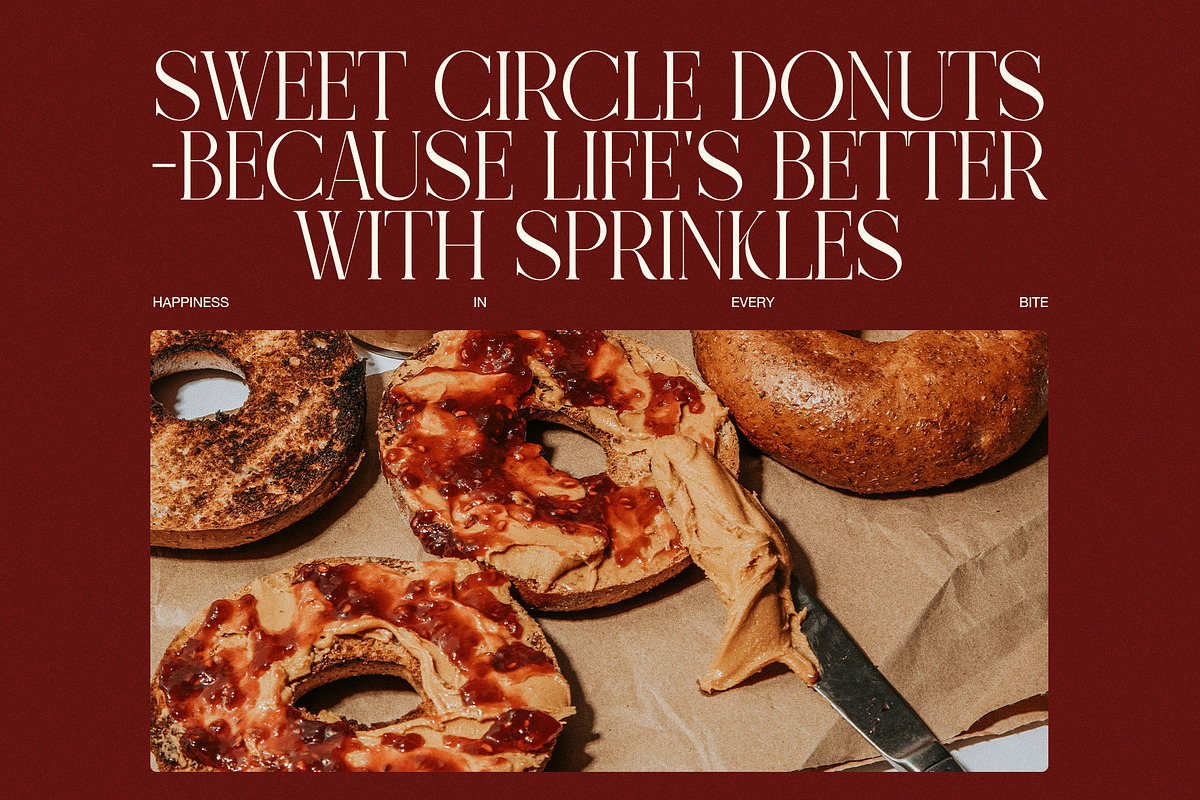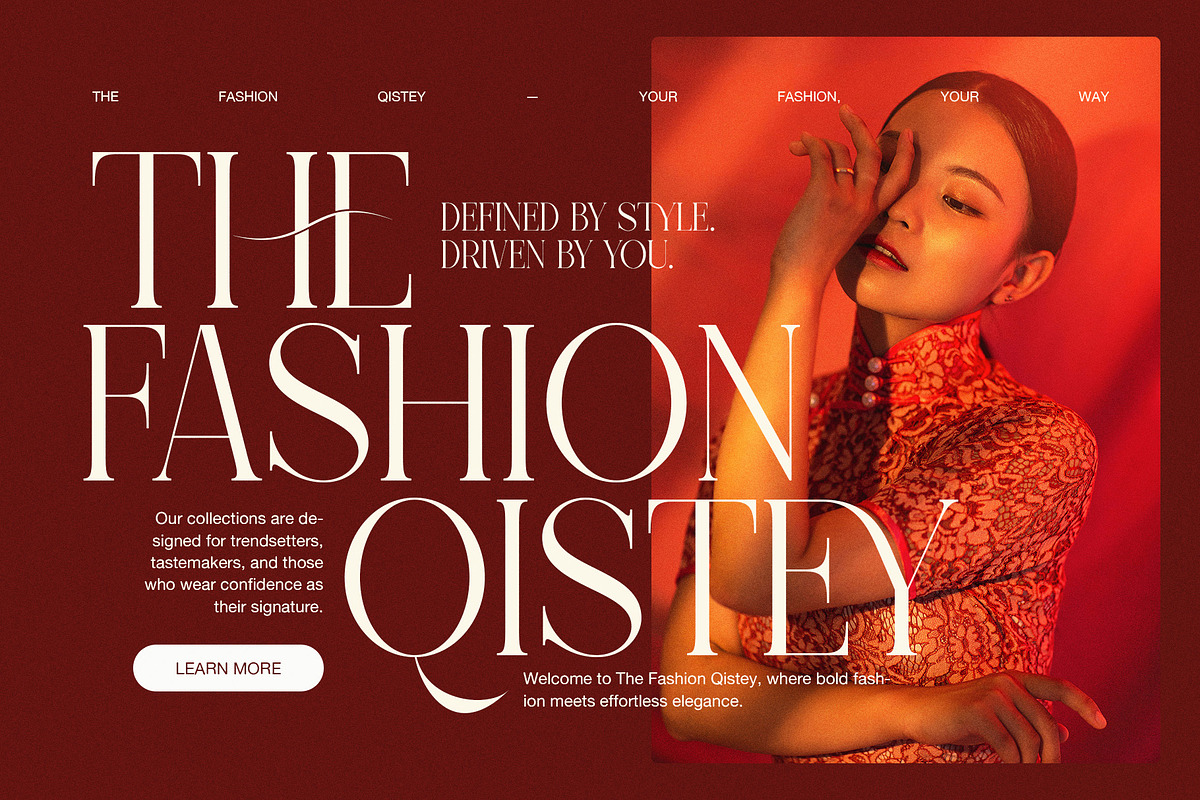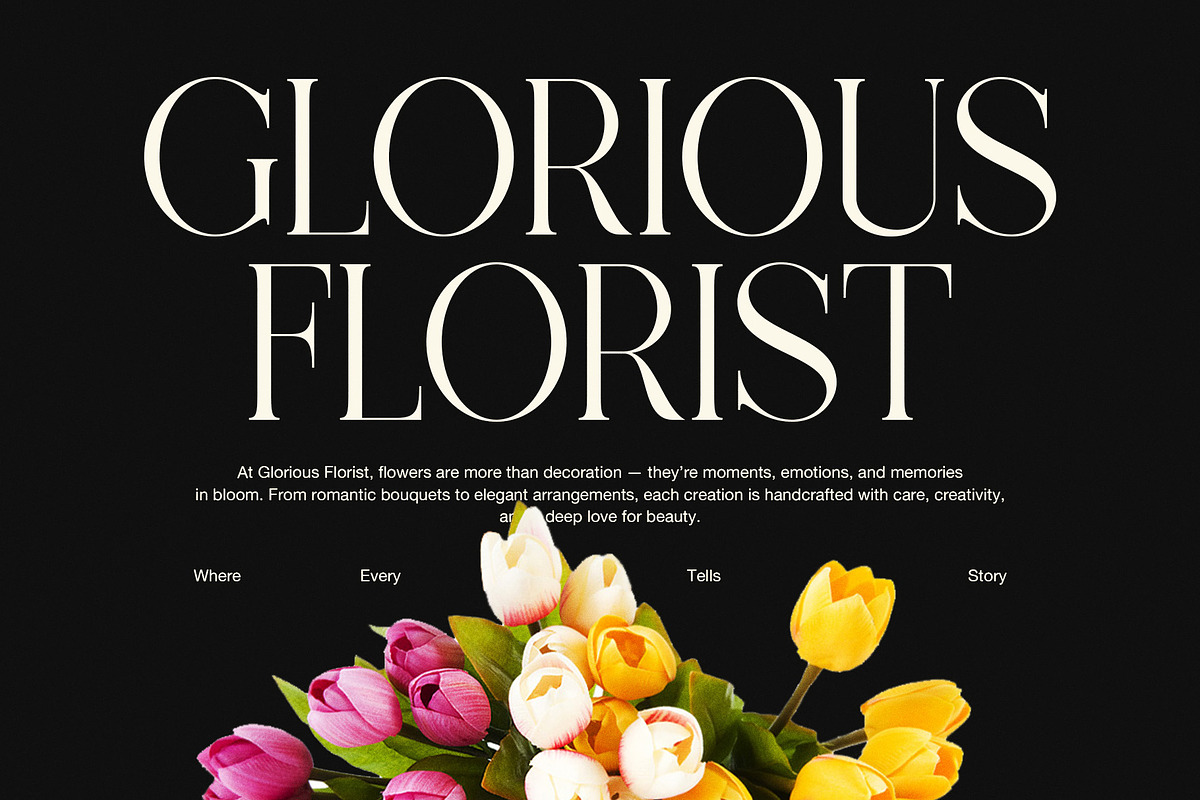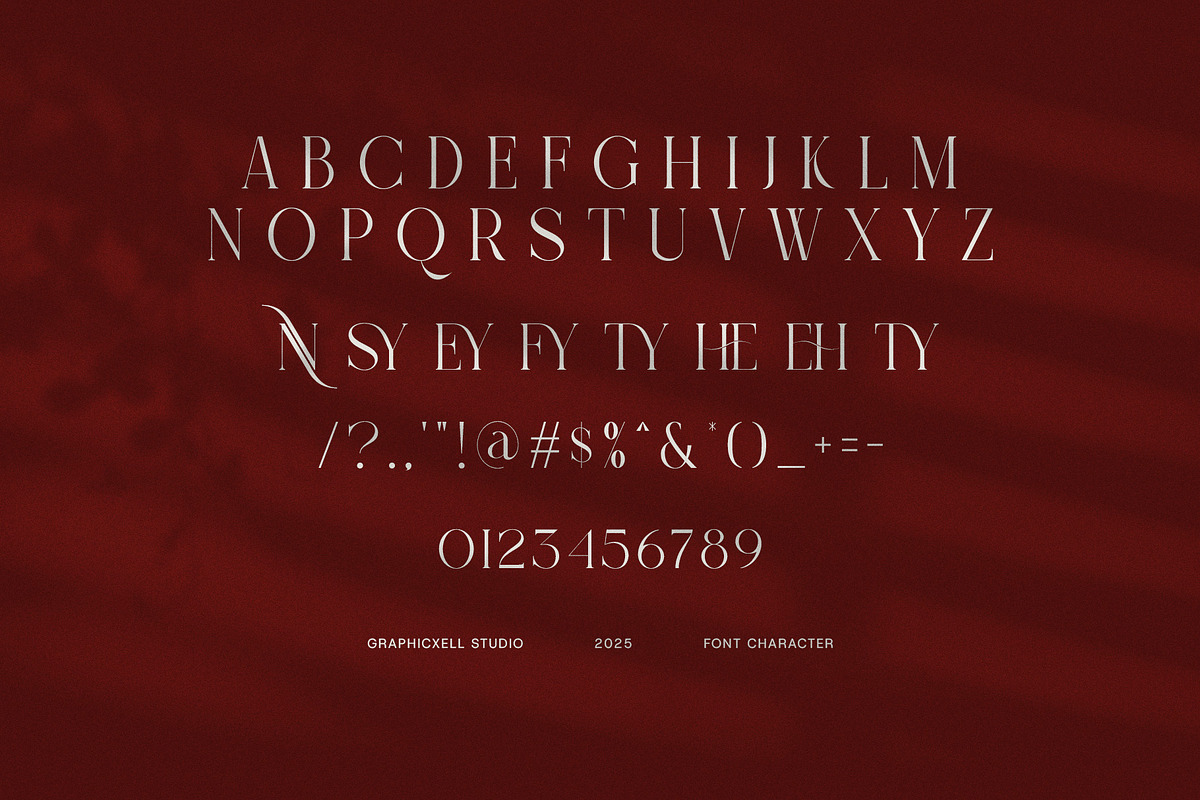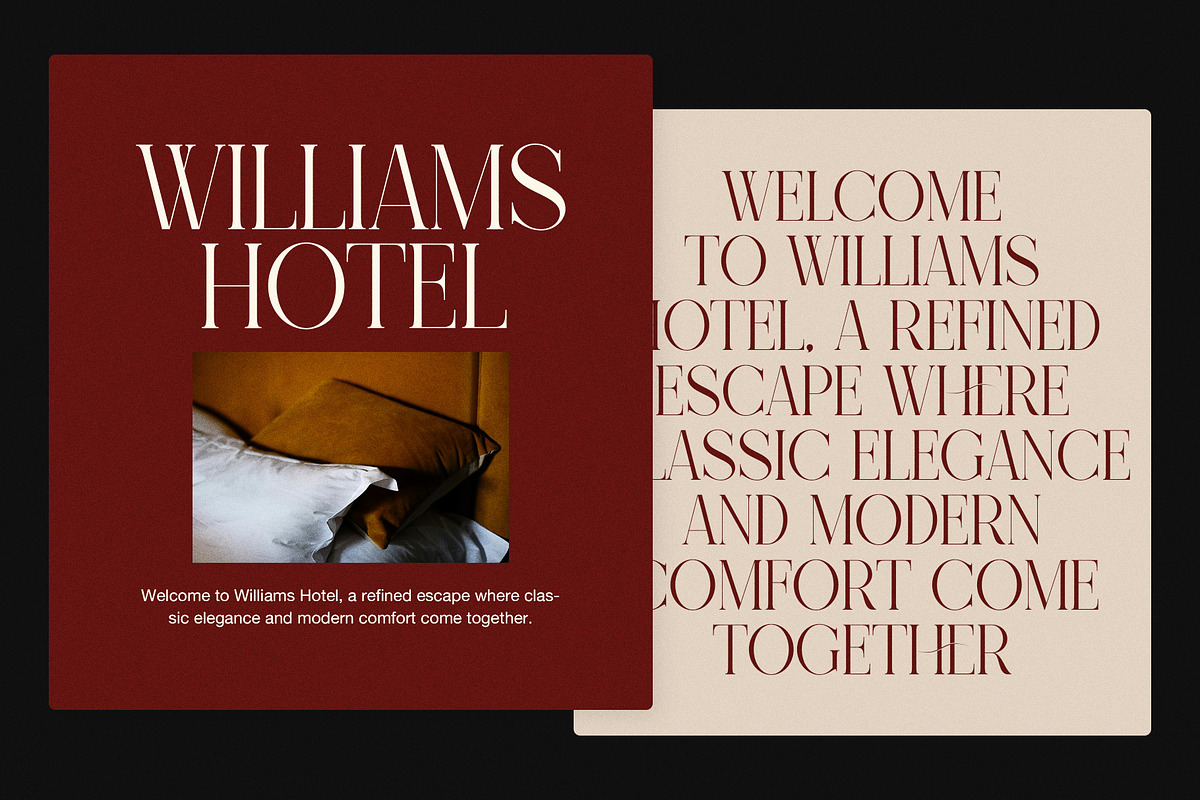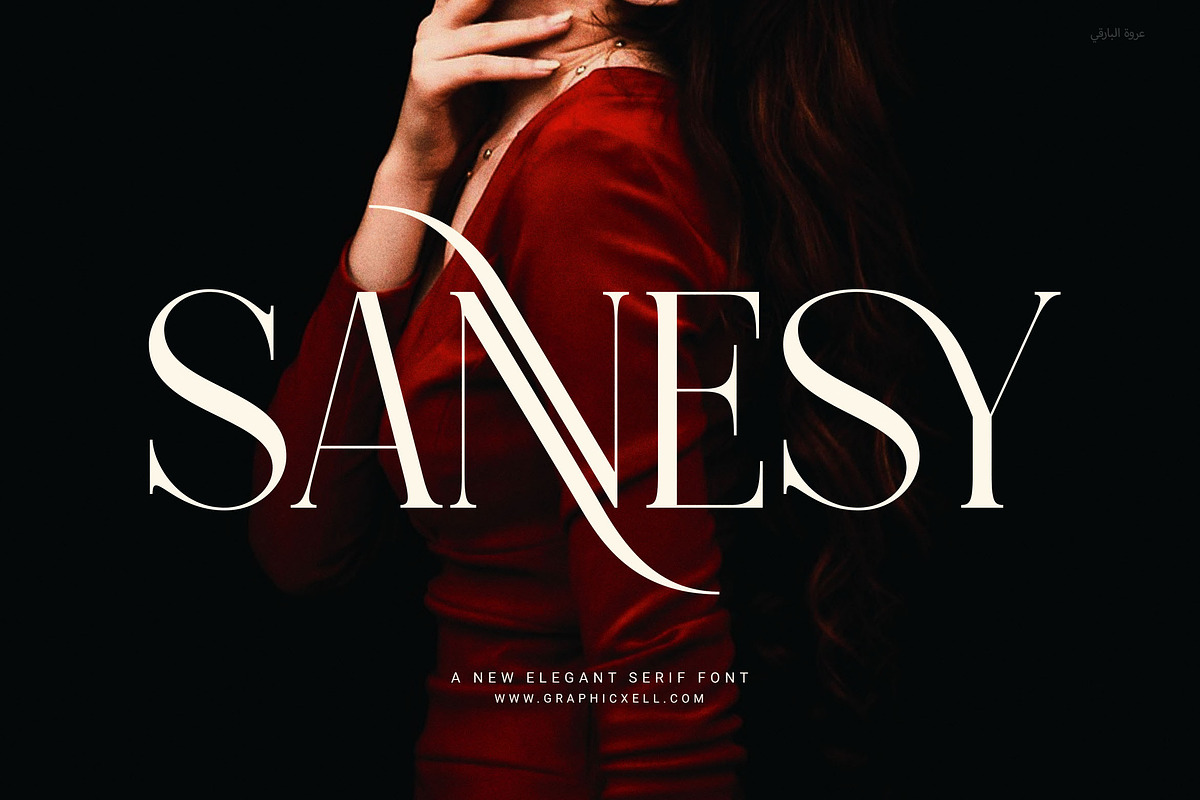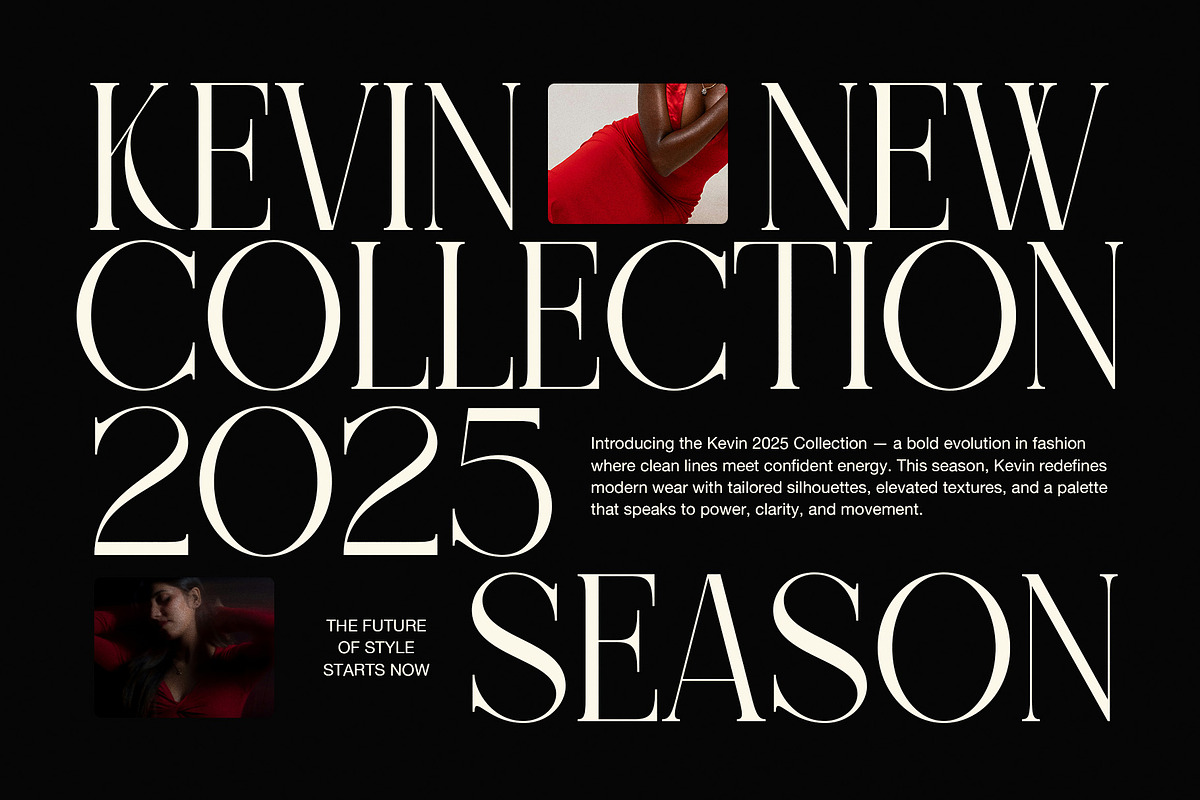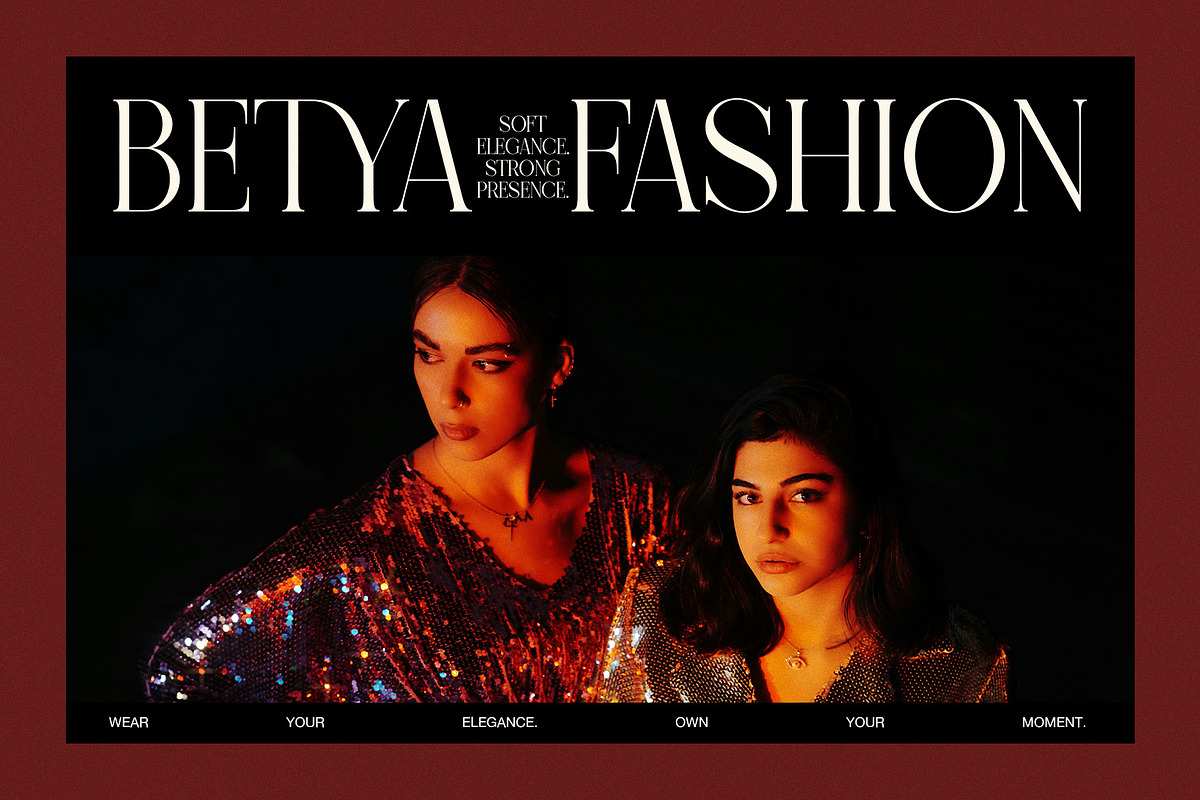
Sannesy Elegant Serif Font
Sannesy Elegant Serif Font is a modern serif typeface that blends classic charm with a fresh and stylish look. Designed with care, its clean lines and smooth shapes bring a sense of beauty and balance to every project.
This font is ideal for both print and digital use. Because of its soft curves and even spacing, it looks great in large titles or small details. Whether you're creating a bold logo, elegant wedding invite, or clean website layout, Sannesy helps your message feel clear and professional.
In addition, Sannesy comes with functional ligatures that add flow and warmth to your text. These ligatures make your designs look more custom and handcrafted—without needing any extra work. With just a few clicks, your words look more stylish and refined.
✨ Great for:
Logos & brand design
Editorial layouts & magazines
Packaging & product labels
Wedding stationery & invites
Fashion lookbooks & blogs
Websites & social media
Menus & business cards
Elegant print designs
✏️ Why Sannesy?
Sannesy is both beautiful and easy to use. Its elegant details and smooth style help bring your ideas to life. Whether for business or creative work, this font gives your design a fresh and classic look at the same time.
So, if you want a font that feels timeless but also modern, Sannesy Elegant Serif Font is a perfect choice.